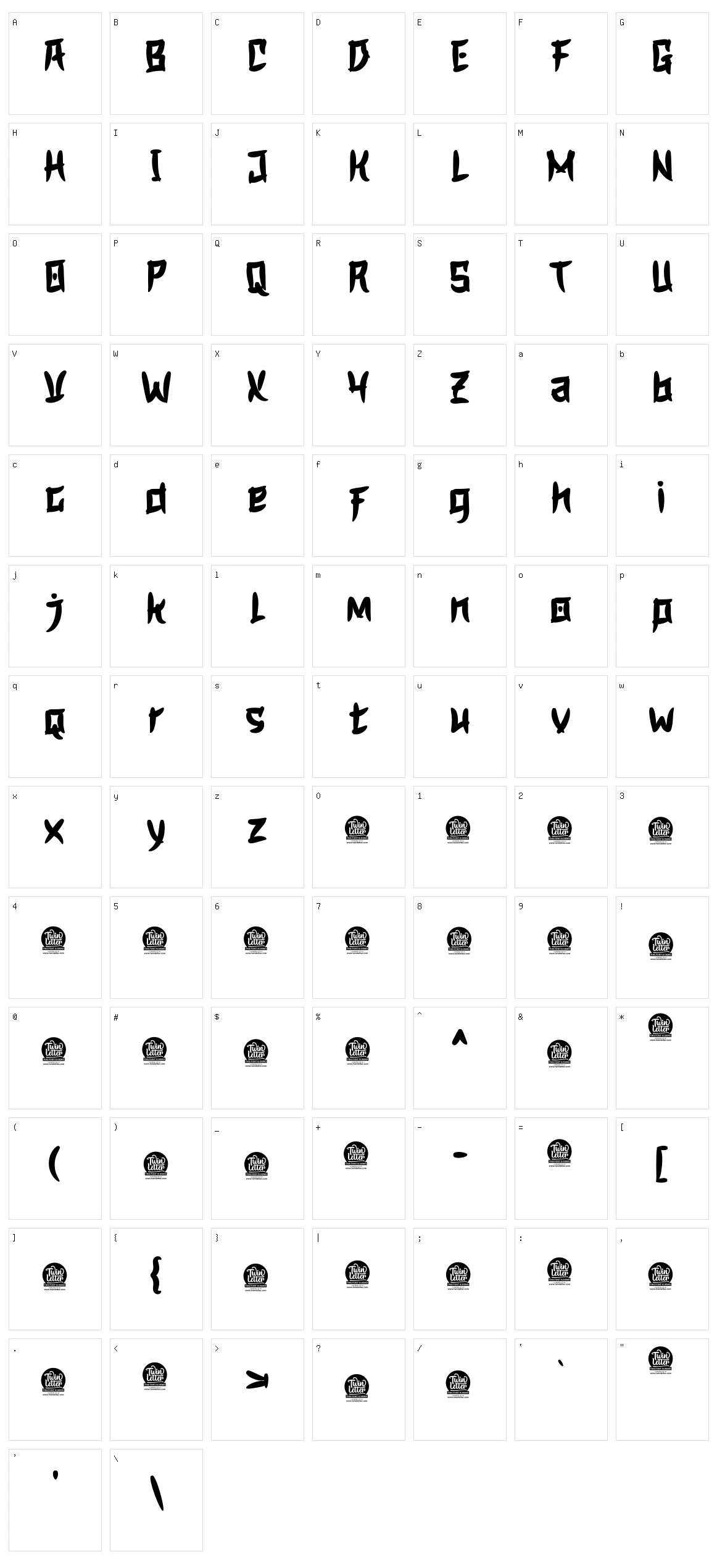
The free font Revoka is carefully designed by twinletter, showcasing a thoughtful balance of creativity and usability and falls under the Asian font style. When you download the ZIP file, it contains only 101.29 KB of font files, making it lightweight and quick to download. Please review the license details below to understand permitted usage and distribution rights. If license information is not available, we recommend using this font for personal projects only or contacting the author directly for commercial usage permissions.